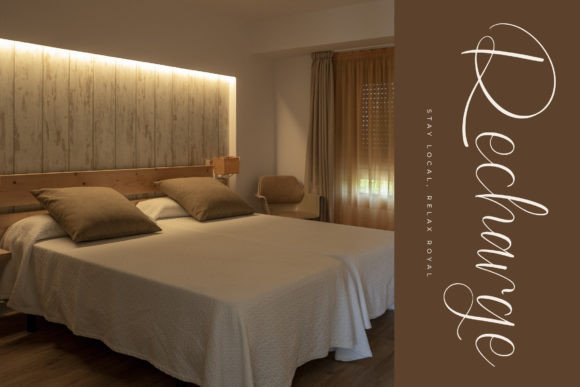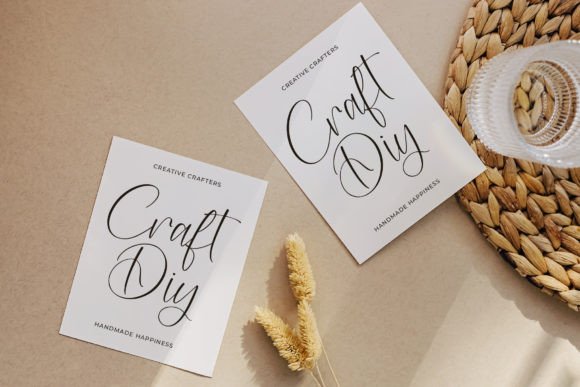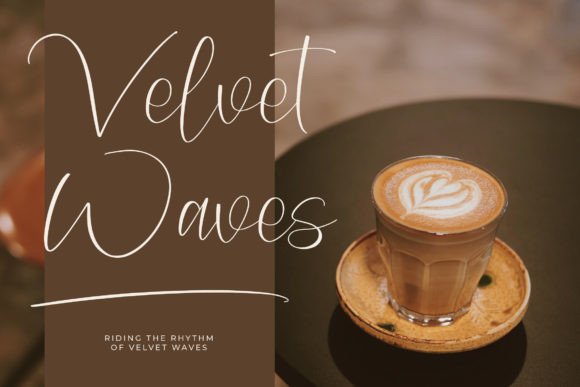
Introduction to Fentony Richard Font
As designers, we’ve all been there – staring at a blank canvas, trying to bring a creative vision to life. It’s the moment when the perfect font can make all the difference. Imagine the swoosh of elegant script, the fluidity of movement, and the sheer sophistication that comes with it. That’s what Fentony Richard Font brings to the table – a high-quality, stylish script font that elevates any design project to new heights.
Whether you’re working on a luxury brand, a high-end fashion label, or a creative project that demands refinement, Fentony Richard Font is the perfect design resource. Its captivating aesthetic and transparent background make it a versatile choice for any design need. And the best part? This stunning font is available for free download, making it an invaluable asset for designers of all levels.
Key Features of Fentony Richard Font
- Unique, hand-drawn style with intricate details and textures
- Supports various languages and character sets for international use
- High-resolution design, suitable for print and digital applications
Honest Review: Fentony Richard Font
I recently came across the Fentony Richard Font and I must say it’s been a great addition to my design resource collection. This high-quality font is perfect for any creative project that requires a modern and sleek aesthetic.
One of the things that stands out about this font is its versatility. It’s great for both digital and print projects, and the transparent background makes it easy to customize and integrate into any design.
Here are some of the things that work well about the Fentony Richard Font:
- Works well in a variety of contexts, from digital to print
While the Fentony Richard Font is a great resource, there are a few limitations to be aware of:
- Only available in a few weights, which may limit its use in some projects
- Not suitable for projects that require a more formal or traditional font style
Overall, I’m really impressed with the Fentony Richard Font. It’s a high-quality design resource that’s perfect for creative projects. I’d definitely recommend it to other designers looking for a modern and versatile font.
Fentony Richard Font
Fentony Richard Font is perfect for a wide range of creative projects, including:
- Branding and marketing materials
- Infographics and data visualizations
- Brochures and flyers
- Business cards and stationery